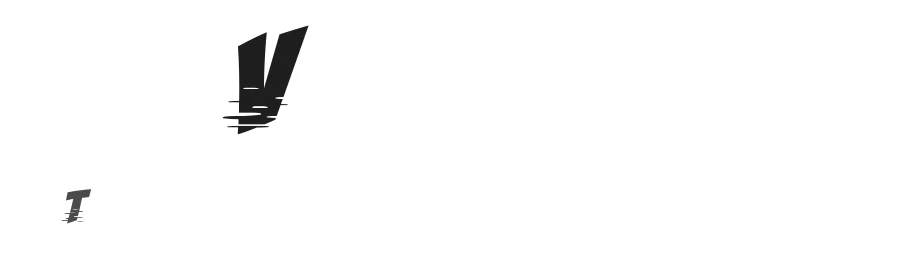
About Grunge Zinda Bad Font
Grunge Zinda Bad is a decorative font designed by Arslan Khaliq. It includes 236 glyphs, a regular weight, TTF (TrueType) format, and 209 languages. Grunge Zinda Bad is free to download; check the license details on this page before commercial use. Decorative fonts like Grunge Zinda Bad work best for logos, posters, packaging, and standout headlines.
Grunge Zinda Bad Font is a decorative font that shines as a display or heading face. Pair it with a clean sans-serif or serif font for body text β the contrast creates a clear hierarchy while the two styles stay balanced and easy to read.
Grunge Zinda Bad Font
Grunge Zinda Bad Font is a decorative typeface by Arslan Khaliq, ideal for logos, invitations, branding, and creative projects.